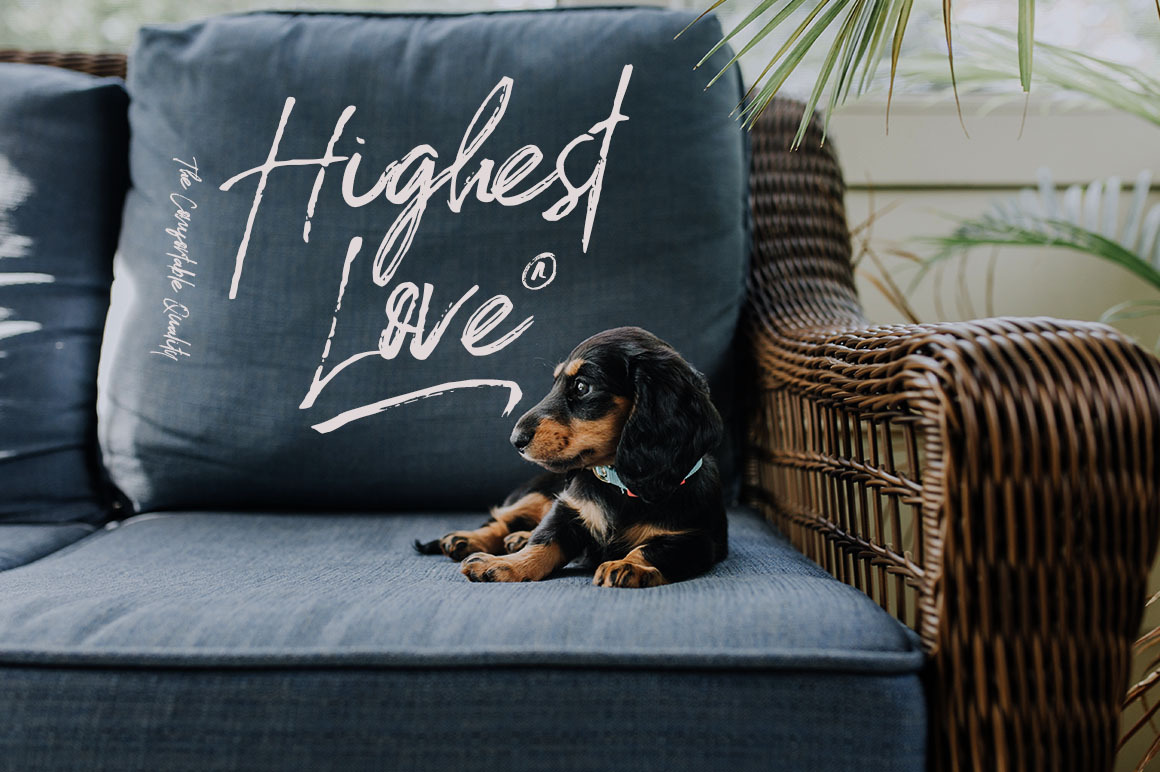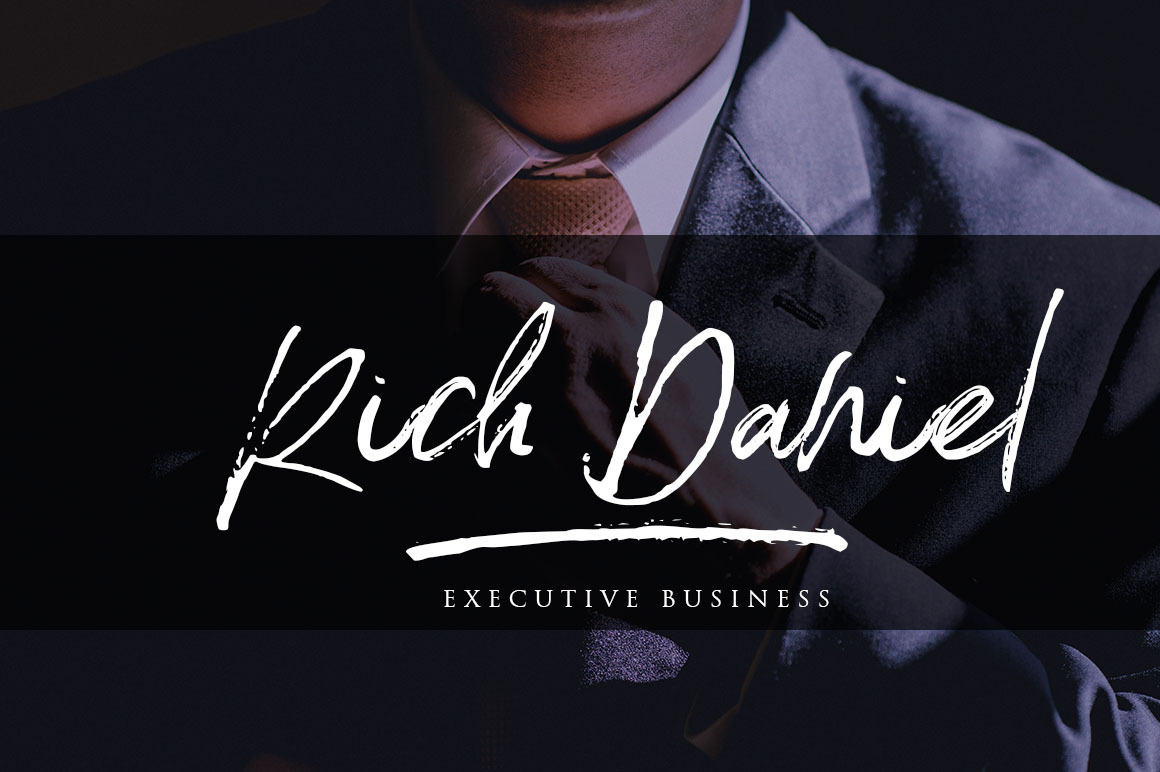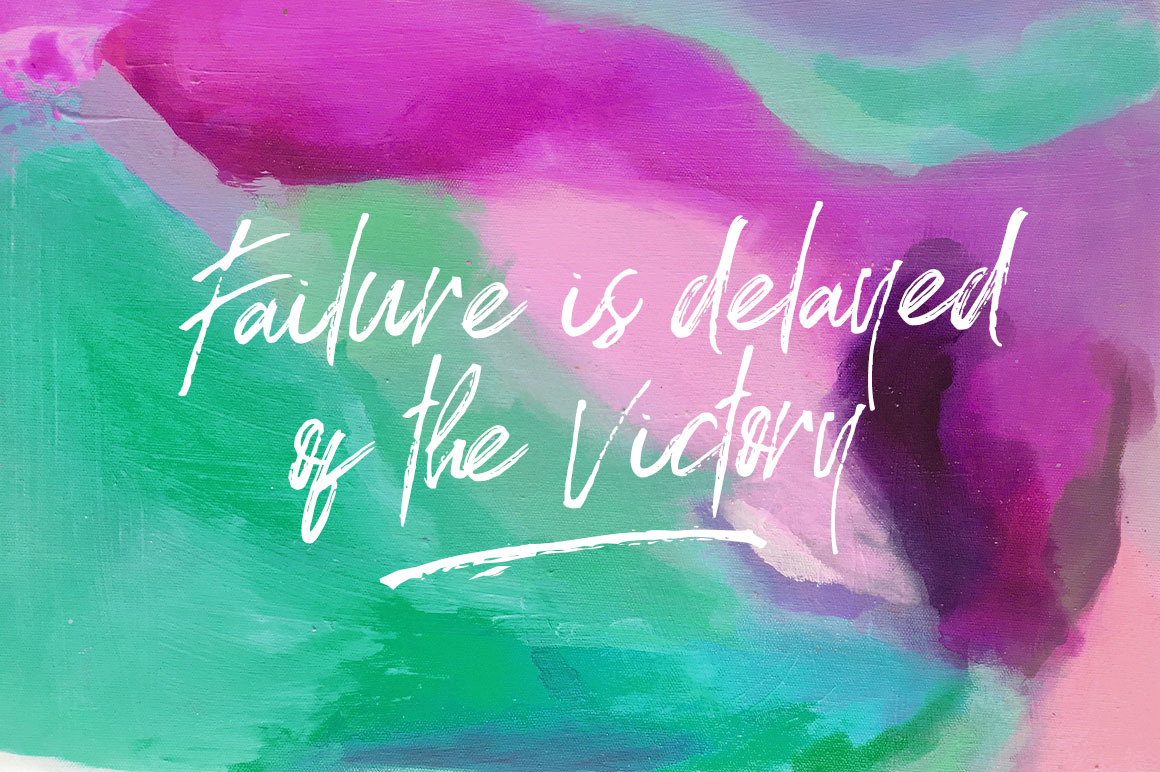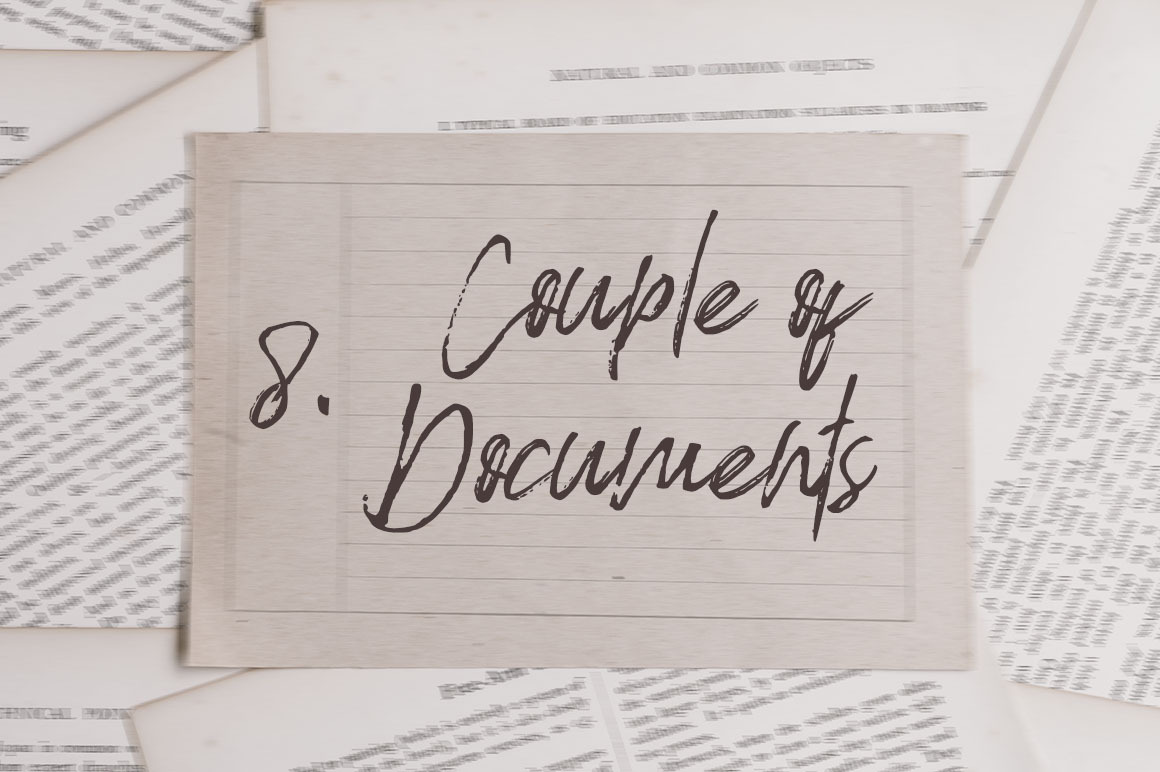
FontBlade Brush Font With Swashes
FontBlade Brush Font With Swashes is perfect for logos, branding, poster designs, social media graphics, and creative packaging. Its bold, brush-style lettering with decorative swashes adds a dynamic and artistic flair to any project.
What makes FontBlade Brush Font With Swashes exciting is its expressive strokes and fluid letterforms, which bring energy, movement, and personality to designs. The font’s unique style ensures your text stands out and grabs attention.
The FontBlade Brush Font With Swashes family includes Regular, Bold, Italic, and Swash variations, giving designers flexibility to craft eye-catching and versatile typographic compositions.